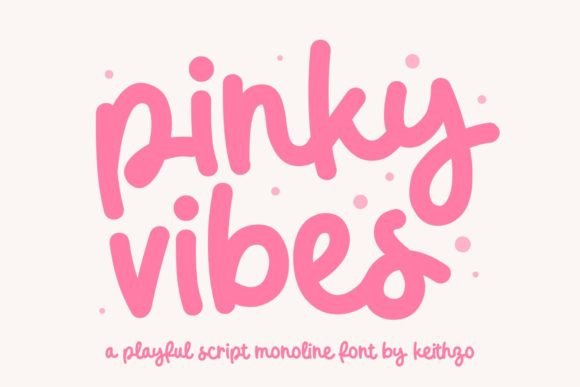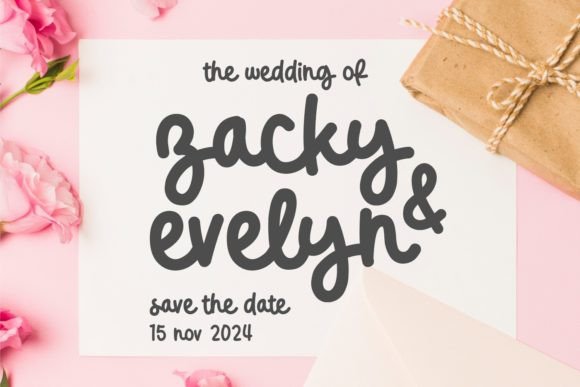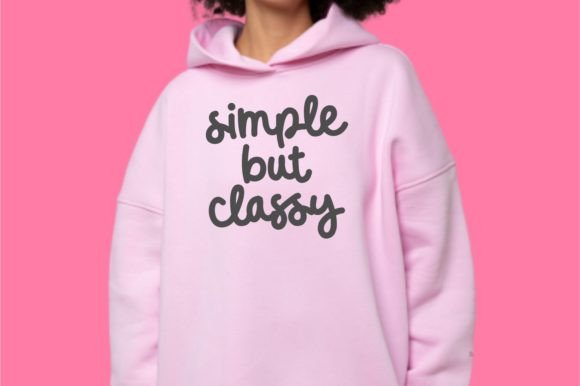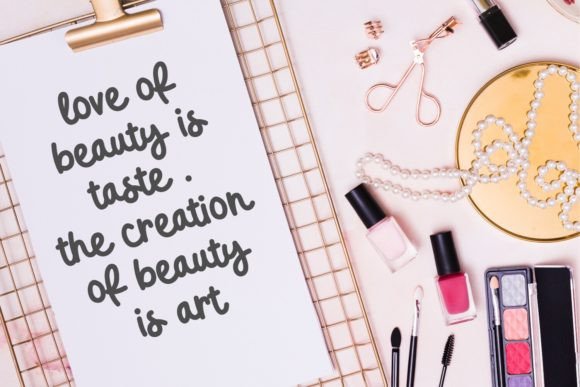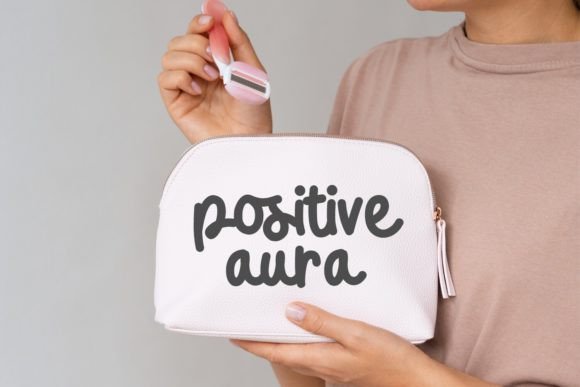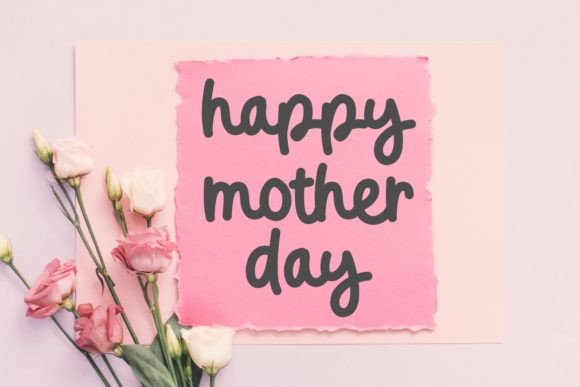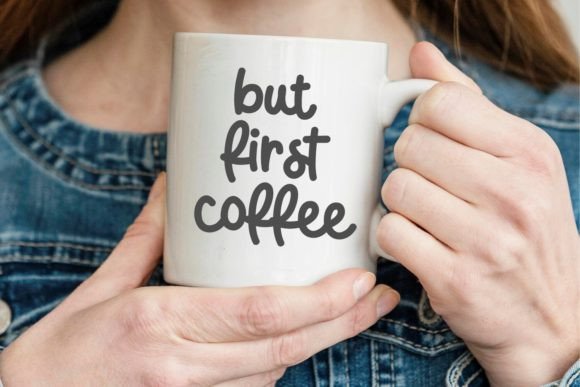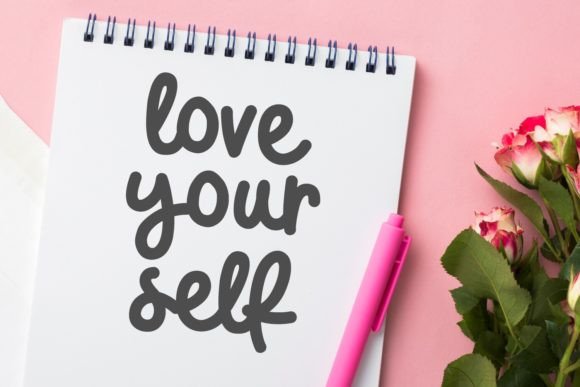
Pinky Vibes Font
Immerse yourself in the delightful charm of Pinky Vibes, a playful monoline script font radiating joy in every character. Let this effervescent font infuse your various design ventures, from enchanting wedding invitations to heartfelt greeting cards, with a touch of enchantment.
Alternatively, utilize Pinky Vibes for your brand logos, serving up a captivating twist that magnetizes audiences. It is also perfect for hoodie designs, skincare branding, and social media copy, or even on coffee mugs. Pinky Vibes is versatile, allowing you to celebrate singular occasions like Valentine’s Day or shine during the sunny summer period.
The jubilant aura of this font punctuates every design, manifesting a cheerful impression and brimming happiness in every curve. Seize the opportunity to experience the magic of Pinky Vibes – feel the difference it makes to your designs and rejoice in the delightful results.